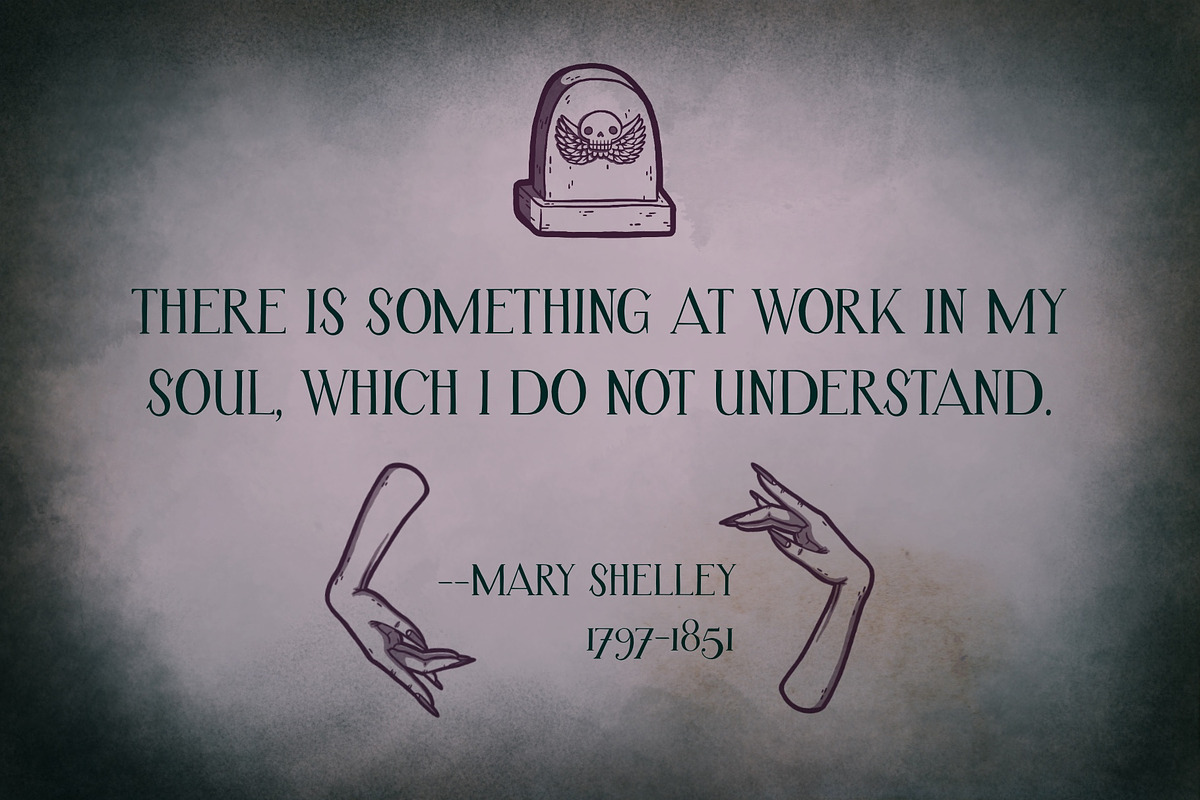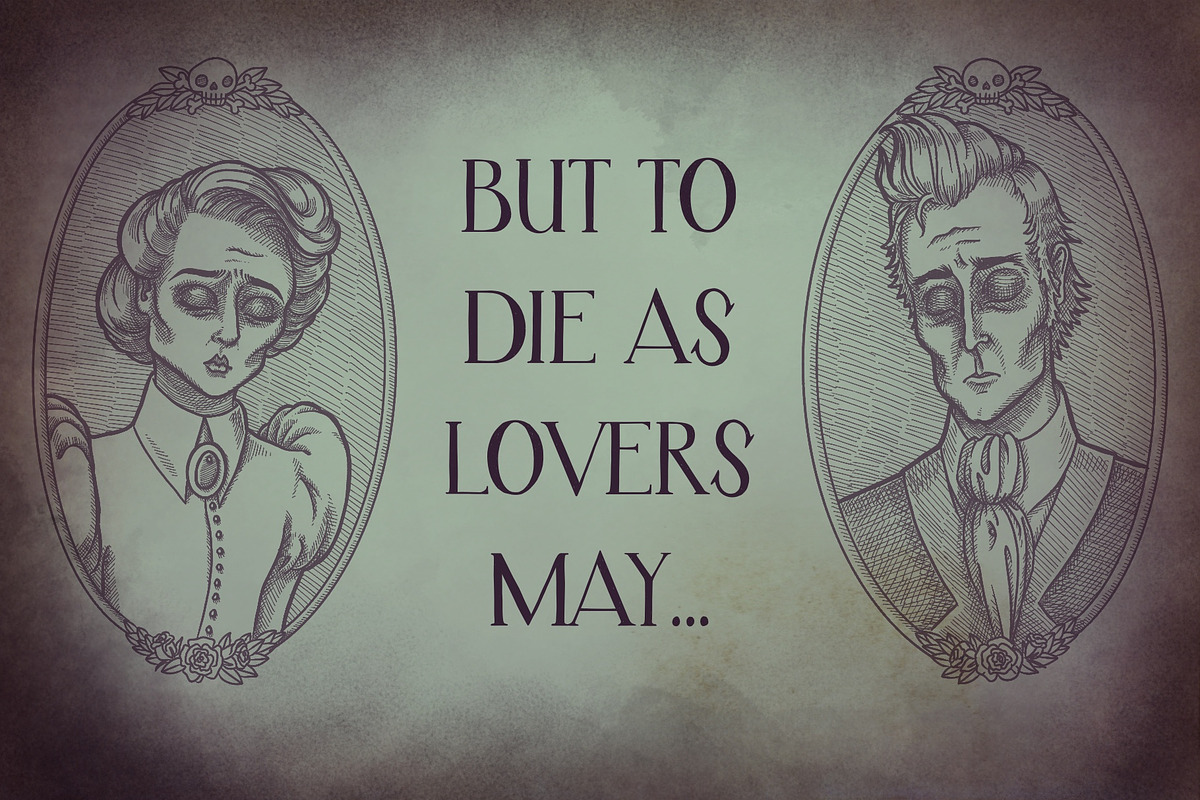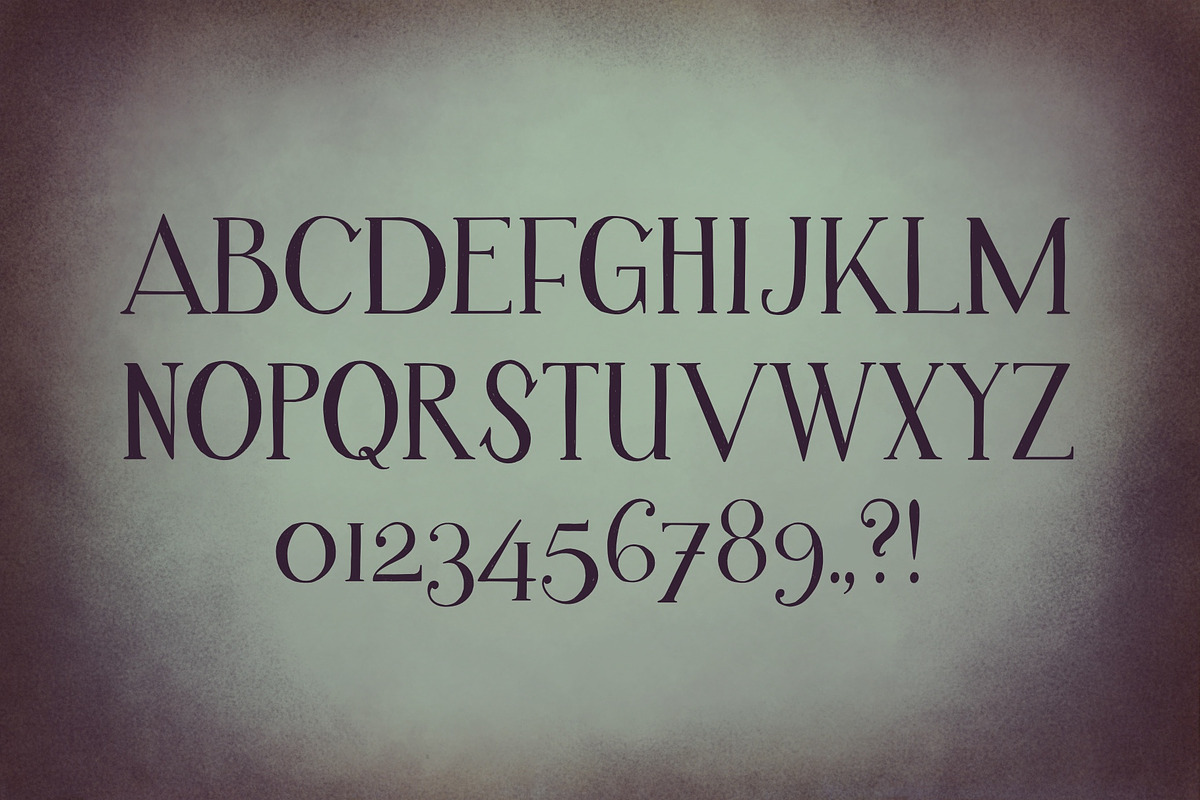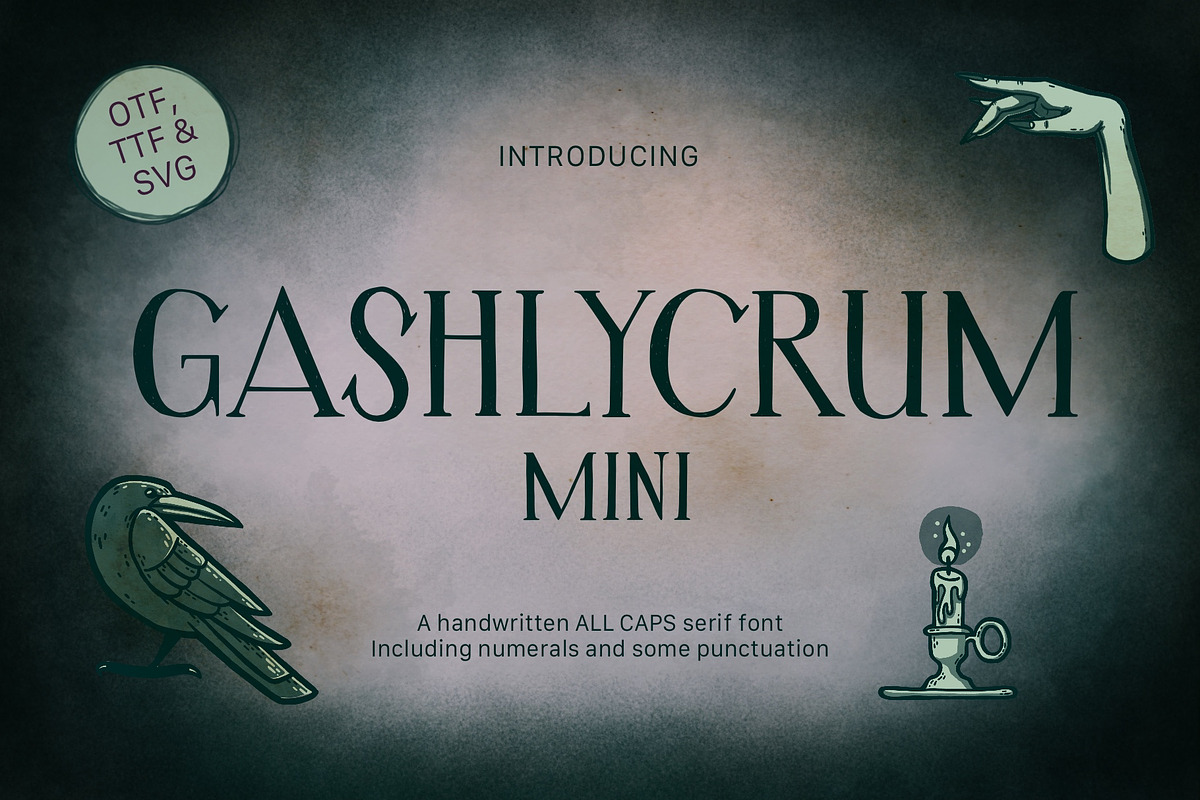
Gashlycrum Mini
Step into a world of darkness and let your creativity run wild with Gashlycrum Mini, the smaller version of the gothic-inspired Gashlycrum font.
Inspired by the works of gothic legends like Edward Gorey, Mary Shelley, Tim Burton and Edgar Allan Poe, this hand-drawn textured serif typeface is perfect for adding a touch of Victorian horror to your designs.
While Gashlycrum Mini includes only capital letters and some glyphs, its bold and ominous presence is sure to make an impact. Upgrade to the full version to unlock a complete set of 244 glyphs, including numerals, punctuation, ligatures, and multilingual support. Plus, you'll receive a set of 20+ ghastly hand-drawn graphic elements in three different colour versions, the perfect pairing to bring your darkest fantasies to life.
FEATURED in GASHLYCRUM MINI:
- A total of 71 glyphs including capital letters numerals and some punctuation (see slides)